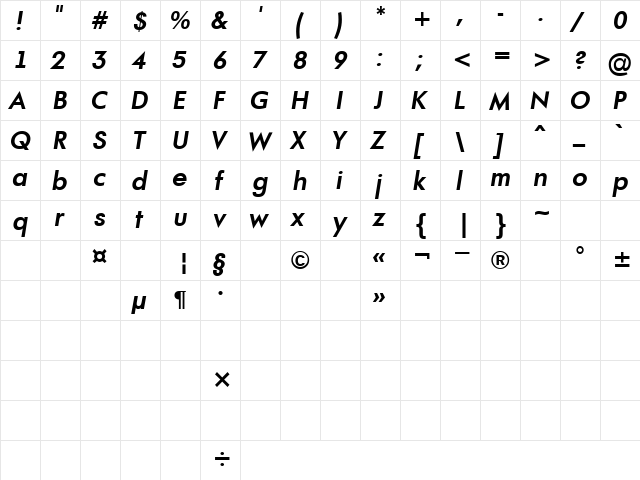
a_FuturaOrto BoldItalic
Design Context for a_FuturaOrto Typeface
a_FuturaOrto has a distinctly futuristic character, with geometric precision and clean angles that feel at home in technology, gaming, and sci-fi contexts. The slanted form adds forward momentum and visual energy. The heavy weight commands attention and anchors typographic hierarchies.